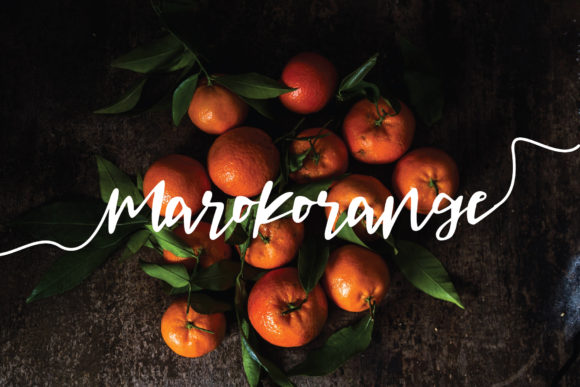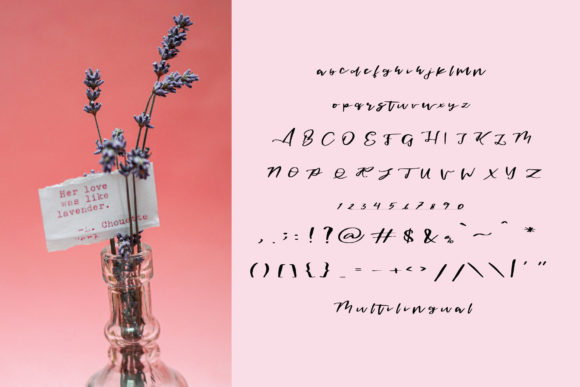
About Marokorange Font
Marokorange is a stylish and incredibly elegant script font. It looks stunning on wedding invitations, thank you cards, quotes, greeting cards, logos, business cards and every other design which needs a handwritten touch.